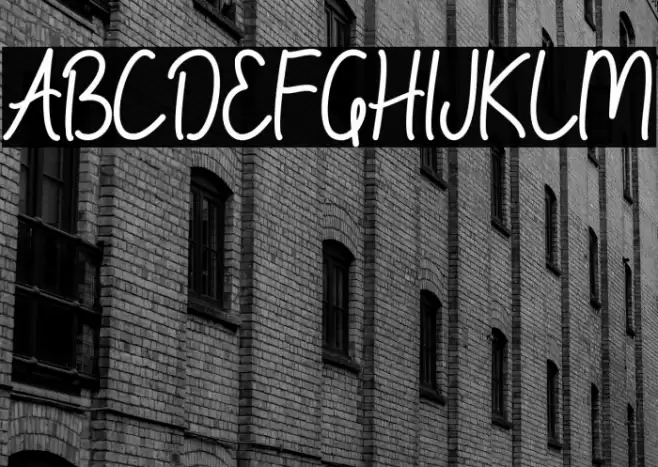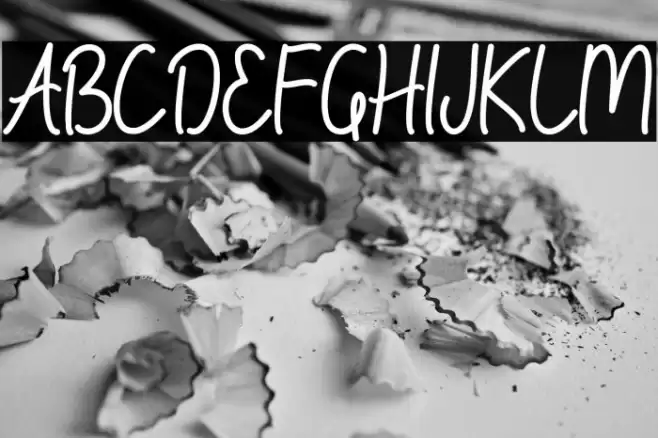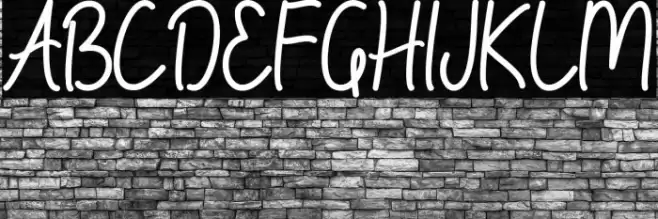
Amelline Font
Amelline Description
This font features a playful and casual handwritten style, characterized by its fluid and continuous strokes. The uppercase letters are tall and slightly narrow, with a consistent slant that adds a dynamic feel. The lowercase letters maintain a similar slant and are connected, enhancing the script-like appearance. Numbers are clear and legible, matching the overall style with rounded edges. Special characters are well-integrated, maintaining the playful and informal aesthetic. The font's overall appearance is friendly and approachable, making it suitable for projects that require a personal touch.
A playful, handwritten script font with fluid strokes and a casual style from Uncategorized fonts.
- Font: Amelline
- Proposed Projects: Ideal for greeting cards, invitations, personal branding, and social media graphics.
- Overall Style: Casual, Playful
- Use Case: Logos, Headlines, Invitations